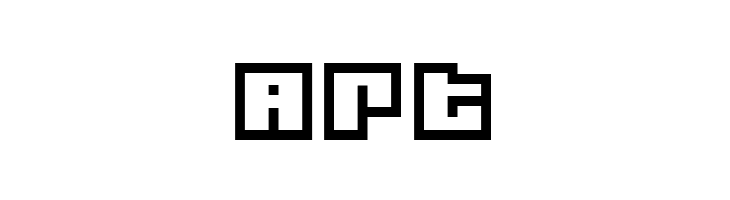
Intricate ornamental dingbats with floral and classical motifs.
A decorative font with ornate and celestial-themed glyphs.
A decorative dingbat font with ornate frame and border designs.
An ornamental font with intricately designed initials in a classic, decorative style.
A decorative font featuring ornate and intricate uppercase 'K' designs.
An ornate and decorative font with intricate designs and embellishments.
An ornate and decorative font with intricate designs for each letter.
A decorative, ornamental font with intricate designs and historical elegance.
An ornate and decorative font with intricate patterns surrounding each initial.
An ornate, decorative font with intricate floral embellishments, reminiscent of medieval manuscripts.
An ornate and decorative font with intricate designs in each letter.
An ornate and decorative font with intricate designs and embellishments.
An ornamental and decorative font with intricate designs in each letter.
An ornate and decorative font with intricate, framed initials.
A decorative font with ornate, medieval-style initials enclosed in intricate frames.
An ornate, decorative font with intricate, medieval-style initials.
An ornate and decorative font featuring intricately designed initials within square frames.
( Font-a-licious - www.fontalicious.com/ )
A bold, playful font inspired by classic arcade games with geometric shapes.
( Fonts by Dennis Ludlow - Sharkshock Productions )
A bold, heavy font with strong, uniform strokes for impactful designs.
( Fonts by Dennis Ludlow - Sharkshock Productions )
A bold, italic font with a dynamic and energetic style.
( Fonts by Renn Crump - http://moorstation.org/typoasis/designers/renncrump/ )
A bold, artistic font with a dripping paint effect, perfect for creative projects.
A bold, dynamic serif font with elegant curves and sharp serifs.
An elegant italic serif font with graceful curves and refined style.
A classic serif typeface with high contrast and elegant serifs.
A classic serif font with an elegant outline effect, offering a refined and sophisticated look.